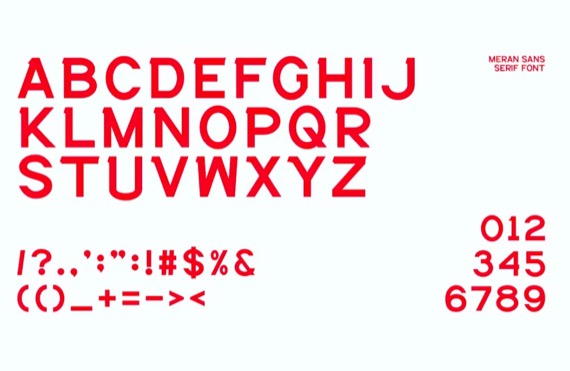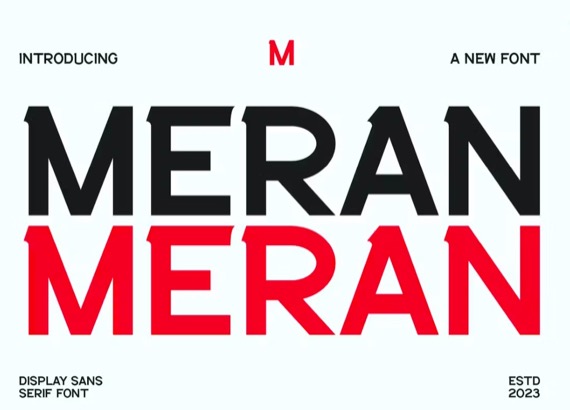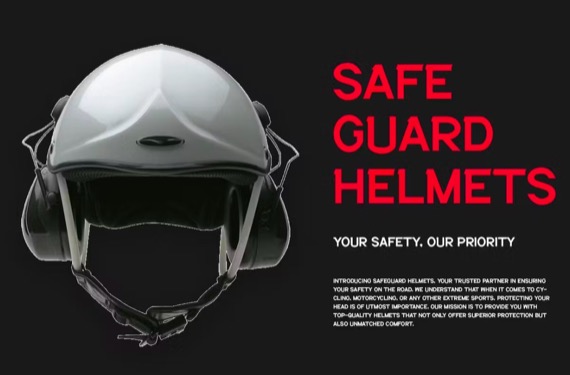
Meran font is a gorgeous sans serif font that captures the essence of strength and grace. A modern sans serif font with an elegant style, perfect for branding, logos, invitations, magazines, product packaging and more.
Meran Sans Serif Font
Name: Meran